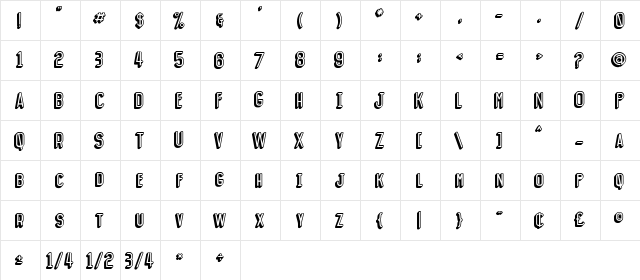
Gallagher Gallagher
Design Context for Gallagher Typeface
Gallagher is a composed and adaptable typeface that performs quietly and consistently across a wide range of design contexts.